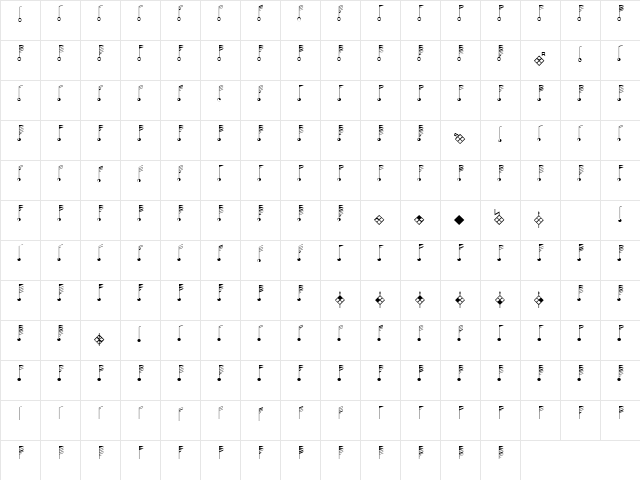
ESRI Weather Regular
Design Context for ESRI Weather Typeface
ESRI Weather is a composed and adaptable typeface that performs quietly and consistently across a wide range of design contexts.